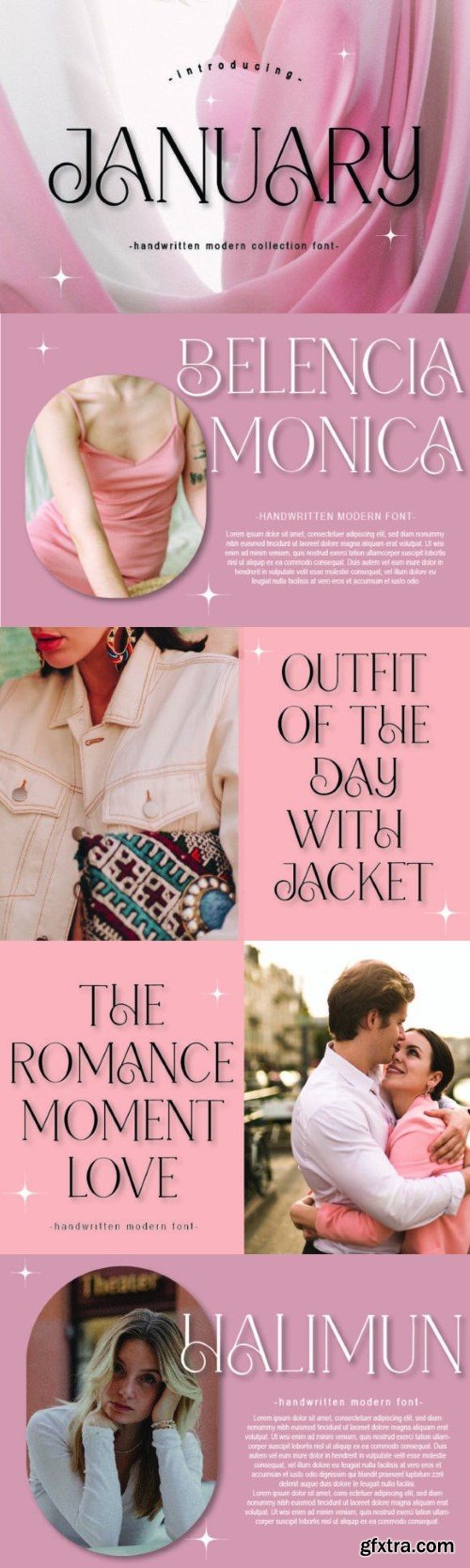
一月字体
January is a elegant and timeless handwritten font. It is the best choice for creating eye catching logos, branding and quotes. Every letter has a unique and beautiful touch, which will make your design come alive!